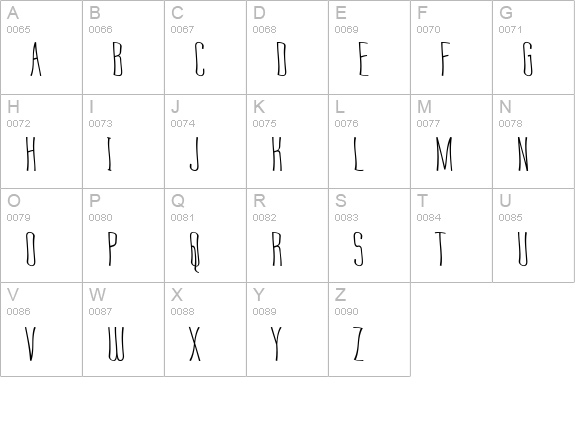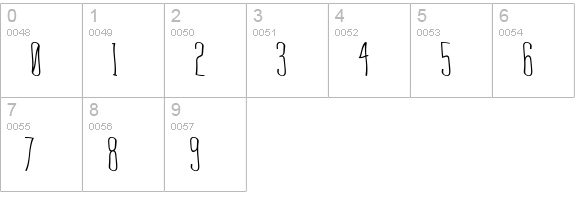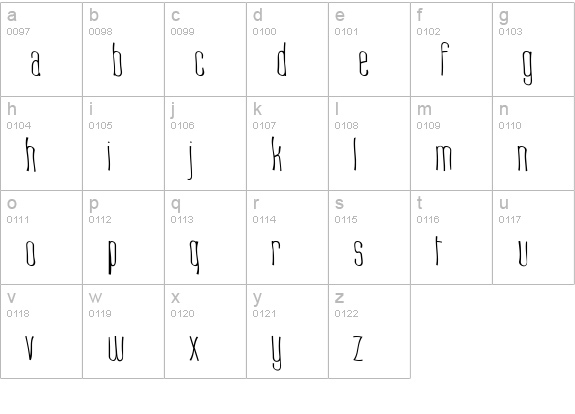
Introducing Labtop Warp 1 font, a captivating and dynamic typeface that will add a touch of innovation to your design projects. This unique font features a modern and futuristic style, making it perfect for tech-related designs, gaming graphics, and futuristic branding. Its sleek and edgy appearance will make your text stand out and grab attention. The Labtop Warp 1 font is not only visually appealing but also versatile, suitable for a wide range of design applications. Whether you're working on a website, poster, logo, or any other creative project, this font will bring a fresh and contemporary look to your work. Best of all, Labtop Warp 1 font is available for free download at FontsMarket.com. This means you can easily access and use this stylish font in your projects without any cost. Don't miss out on the opportunity to enhance your designs with this eye-catching typeface. Download Labtop Warp 1 font today and take your creativity to the next level!